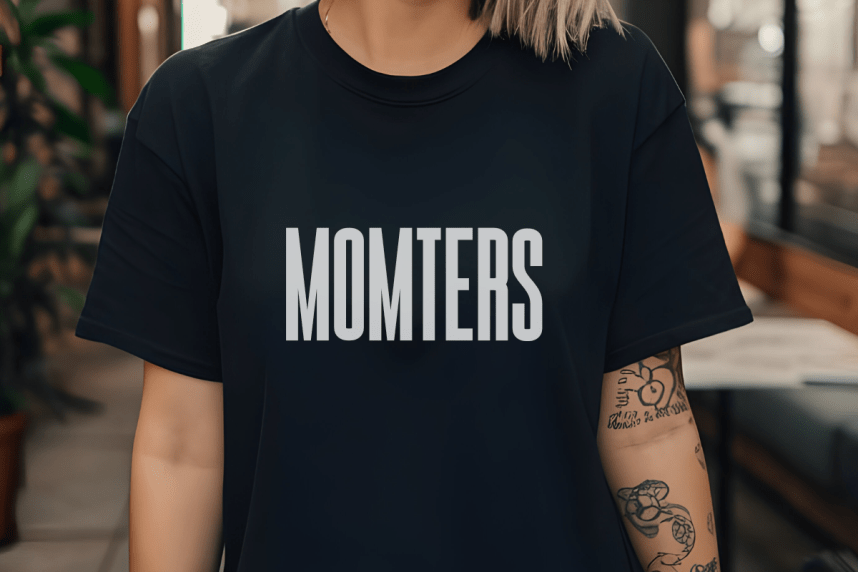
Achieve Font is a bold and professional retro condensed sans serif font. Featuring a strong and solid structure, it offers support for all characters of the English language. Standard punctuation glyphs are included. Achieve is perfectly suited for corporate branding, motivational posters, and high-impact apparel design. Great for crafters and graphic artists alike. Compatible with tools such as Photoshop, Cricut Design Space, or Silhouette Studio. Its narrow and assertive style makes it great for creative projects, be it modern office signage or for communicating your brand’s ambitious goals.